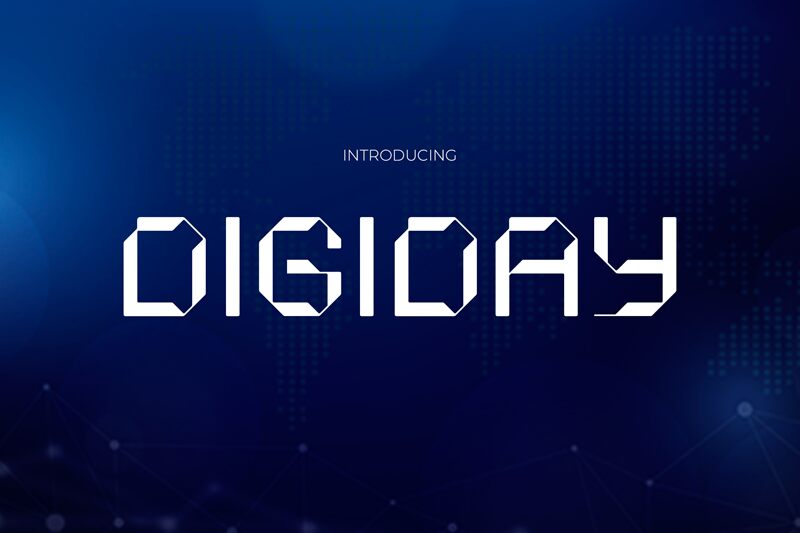
DIGIDAY
Digiday font by Pinisiart is a free techno display font with a geometric and angular style. With its futuristic design and stark contrasts, this typeface exudes a modern appeal that catches the eye. It comes with bold characters in various forms which makes it easy to create striking visuals in your web or print project.
Use Digiday for both online or offline purposes such as branding, packaging, advertising, social media, blog graphics, typographic quotes. It’s also ideal for creating business cards, promotional items such as flyers and posters, magazines covers and pages among many others.